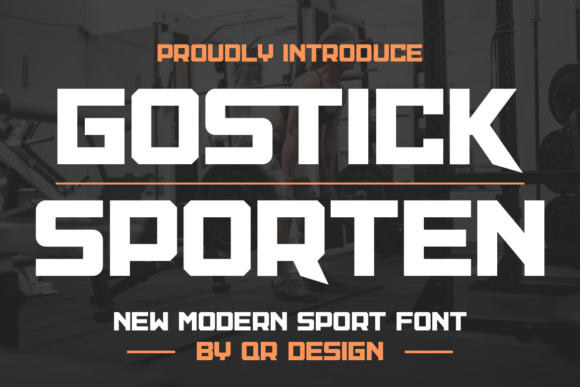
In a world demanding attention, your brand needs a voice that speaks volumes. Enter Gostick Sporten, the font that embodies boldness, strength, and a touch of masculine allure. Its sans serif strokes command attention, leaving an indelible mark on your audience.
Crafted with precision by qrdesignstd, Gostick Sporten is more than just a font; it's a statement of power and confidence. Its thick, unwavering lines exude an air of authority, while its sharp edges convey a sense of determination. Whether you're a creative seeking to craft a lasting impression or a business owner aiming to leave a powerful mark, Gostick Sporten is your ultimate companion.
Unleash the full potential of your creative projects with Gostick Sporten. It's the ideal choice for designing logos that demand attention, headlines that captivate, and posters that leave an impact. Its strong presence adds weight to your words, ensuring they resonate with your audience and leave a lasting impression.
With Gostick Sporten, you'll discover a world of possibilities. Its versatility extends beyond traditional designs, making it the perfect choice for creating eye-catching social media posts, website designs that inspire, and even merchandise that speaks volumes.
Immerse yourself in the world of Gostick Sporten and unlock a new level of creativity. Let your designs radiate confidence, strength, and an undeniable sense of style. With this font as your ally, you'll create designs that are not just visually appealing but also deeply impactful.
Gostick Sporten: The Font of Champions. Embrace it and watch your creative endeavors soar to new heights.